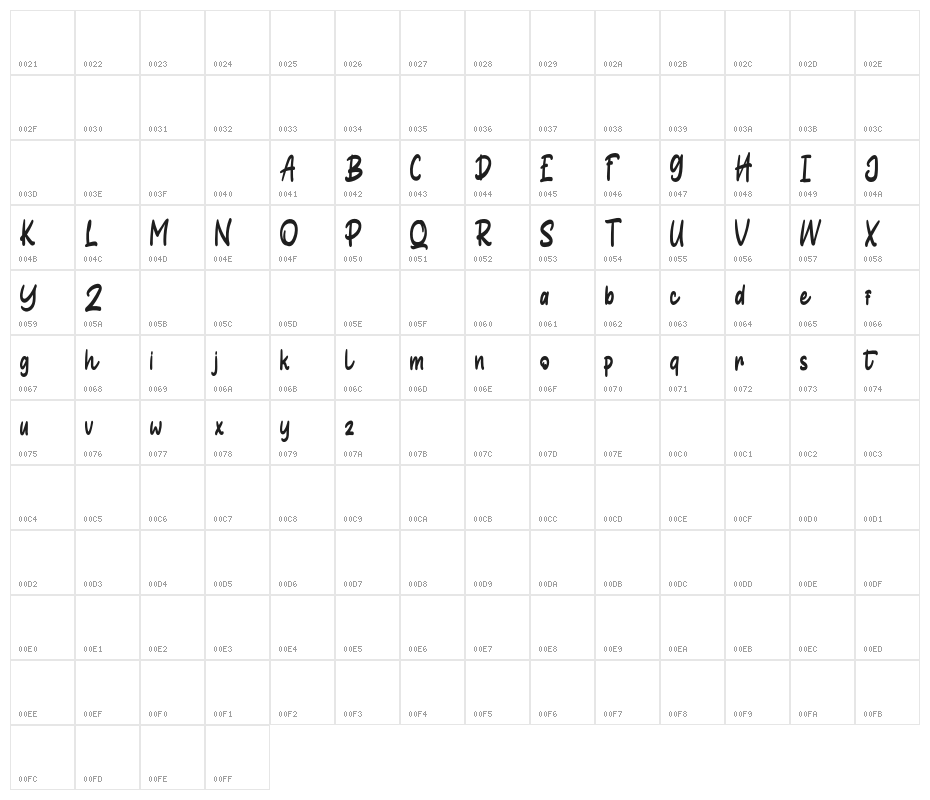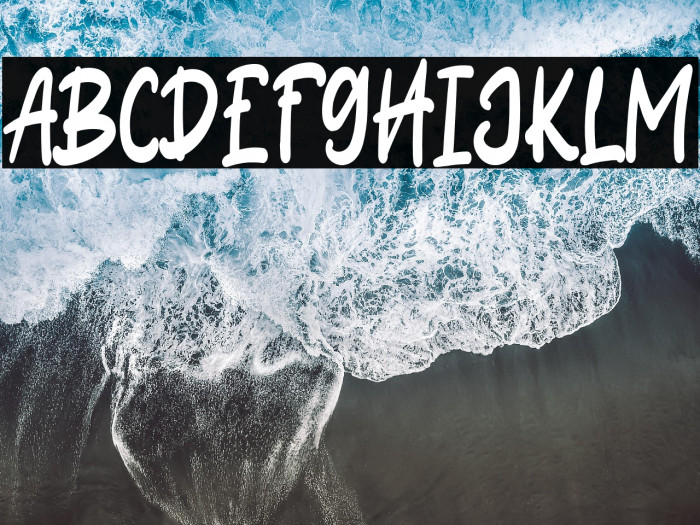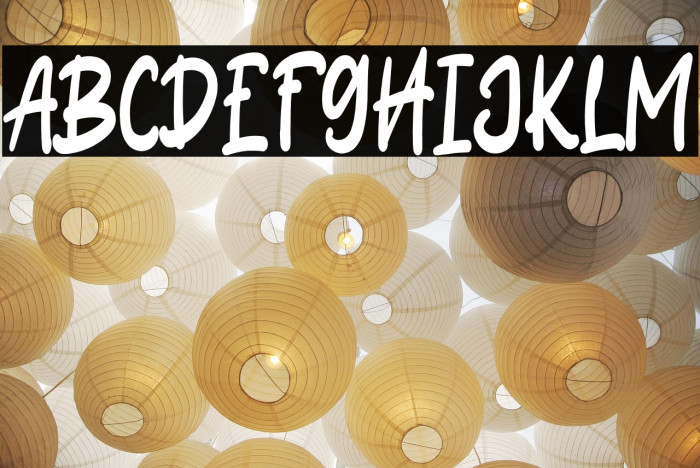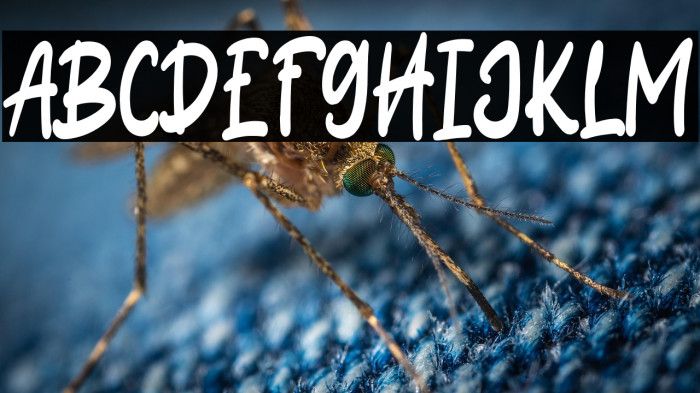
Hallou Font
Hallou Description
This font features a playful and energetic style with a handwritten appearance. The letters are bold and rounded, giving a friendly and approachable feel. The strokes are consistent in thickness, providing a uniform look across all characters. The uppercase letters are slightly taller than the lowercase ones, maintaining a balanced proportion. The font has a casual and informal vibe, making it suitable for creative and fun projects. The character spacing is normal, ensuring readability while maintaining its unique style. Overall, this font exudes a sense of warmth and personality, perfect for projects that require a touch of whimsy.
| Proposed Projects | Ideal for greeting cards, children's books, playful branding, and social media graphics. |